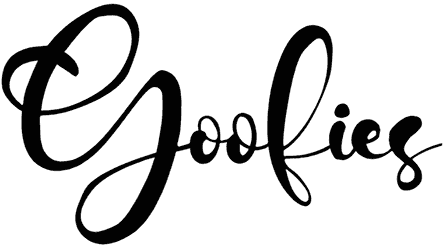
Goofies Font
Elegant and distinctive, Goofies is a font that quickly catches the attention of all who see it. This calligraphy font is the one that can meet your design needs well and add beauty and charm to any design.
So, stop your search here if you’re looking for a hand-styled script font that will give you a new level of originality. Goofies is a font that, despite being illegible, brings a lot of beauty to your posters, wedding cards, and advertisements.